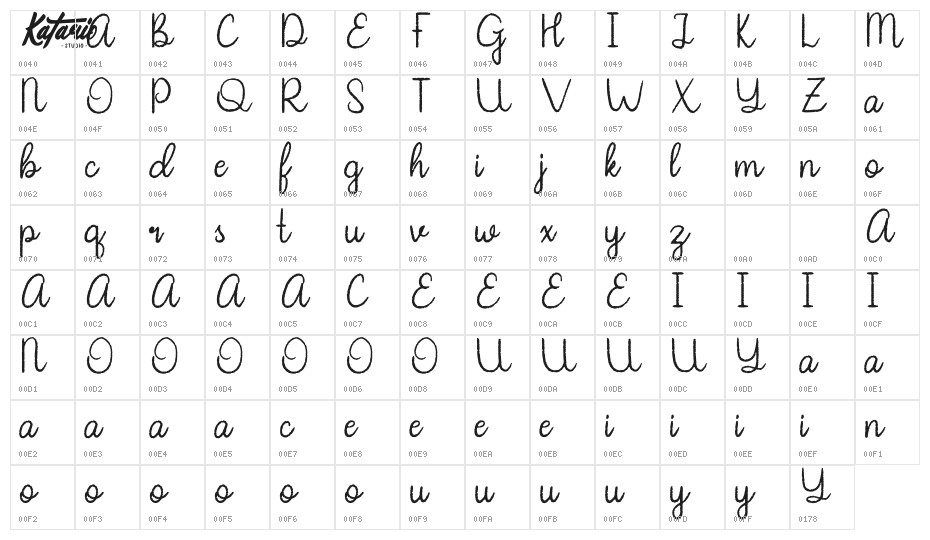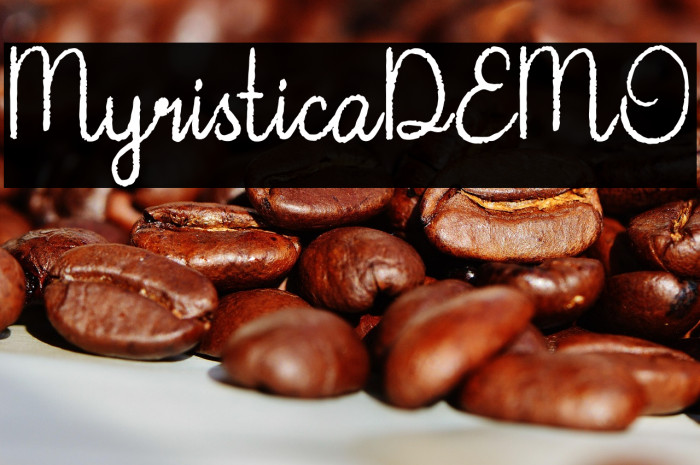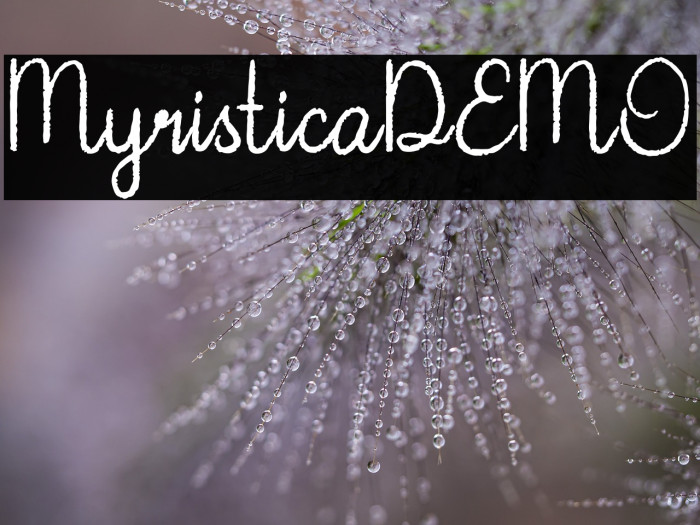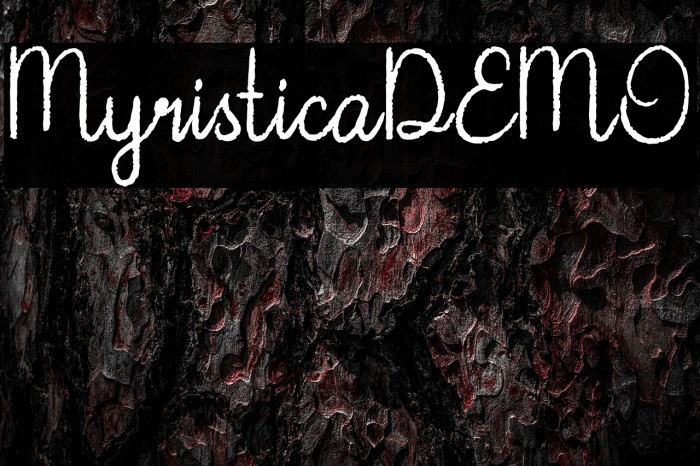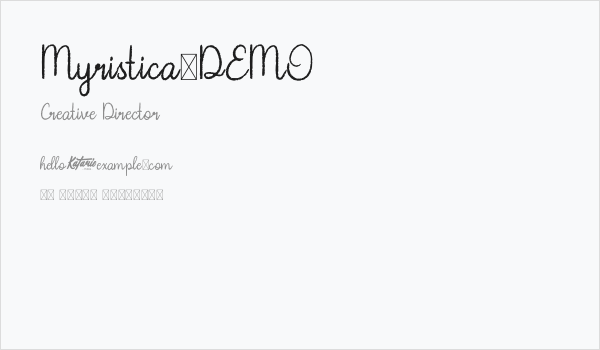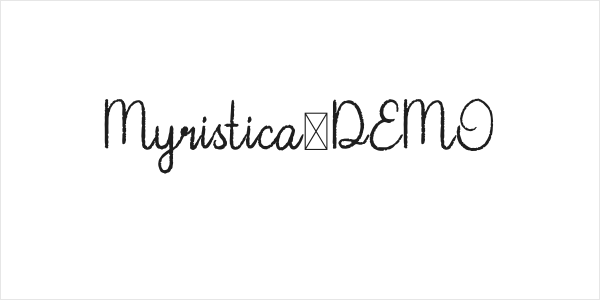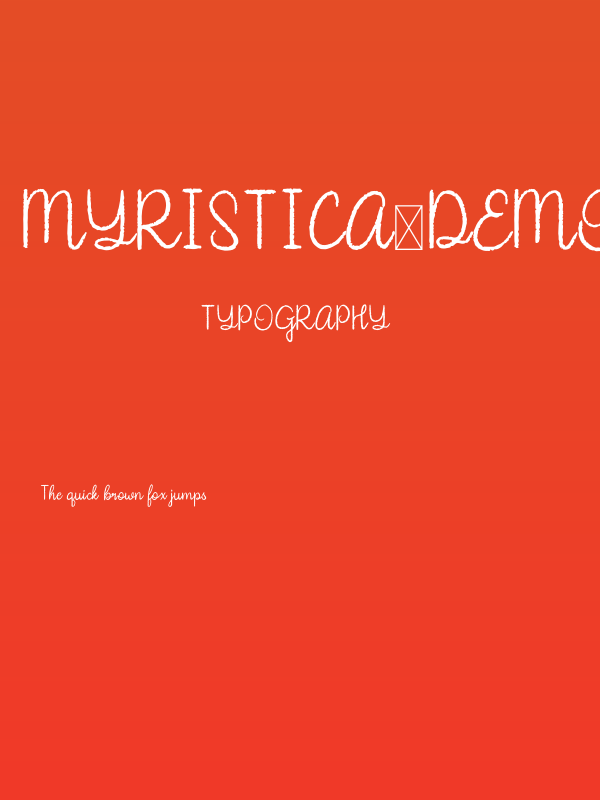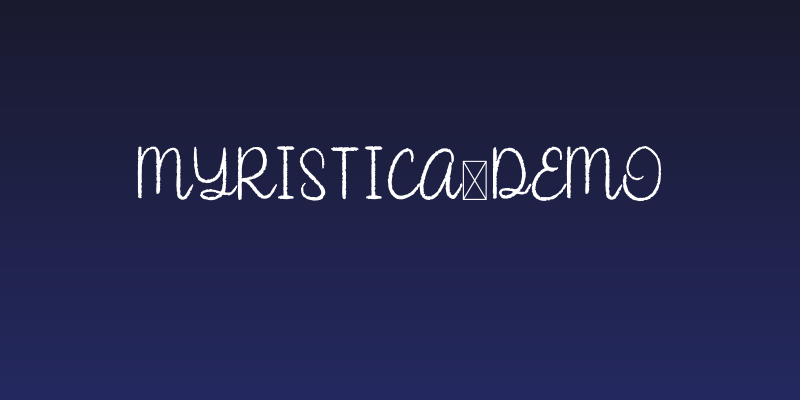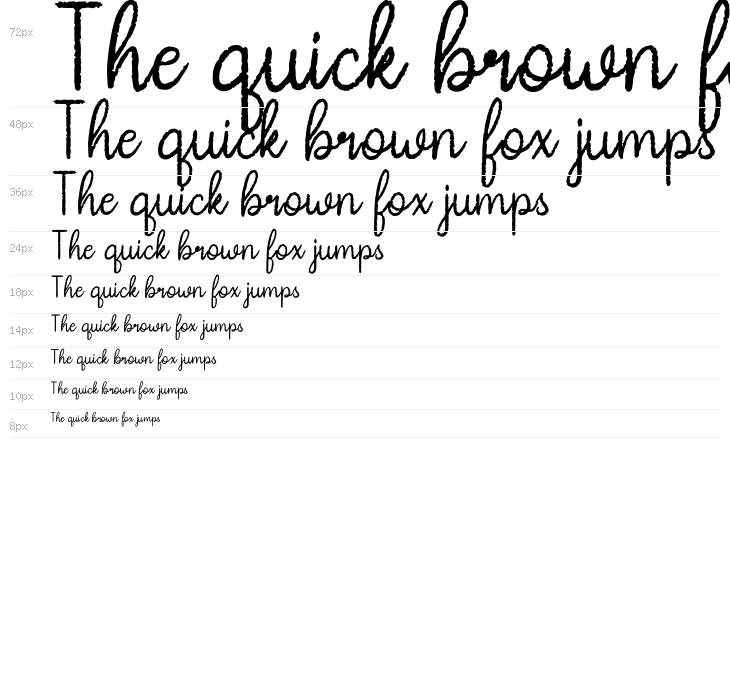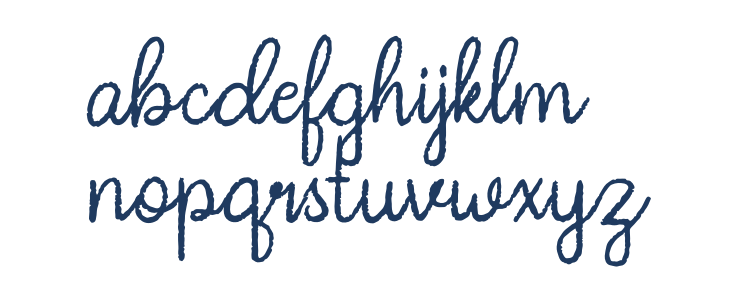
Myristica-DEMO Font
Myristica-DEMO Description
This font features a unique blend of handwritten and decorative styles, characterized by its flowing, cursive lowercase letters and more structured uppercase letters. The strokes are uneven, giving it a textured, organic feel that mimics the look of ink on paper. The uppercase letters are more upright and formal, while the lowercase letters exhibit a more fluid and connected style, enhancing its handwritten appearance. The font's playful and artistic nature makes it suitable for creative projects. The absence of numerals and special characters in the image suggests a focus on alphabetic design.